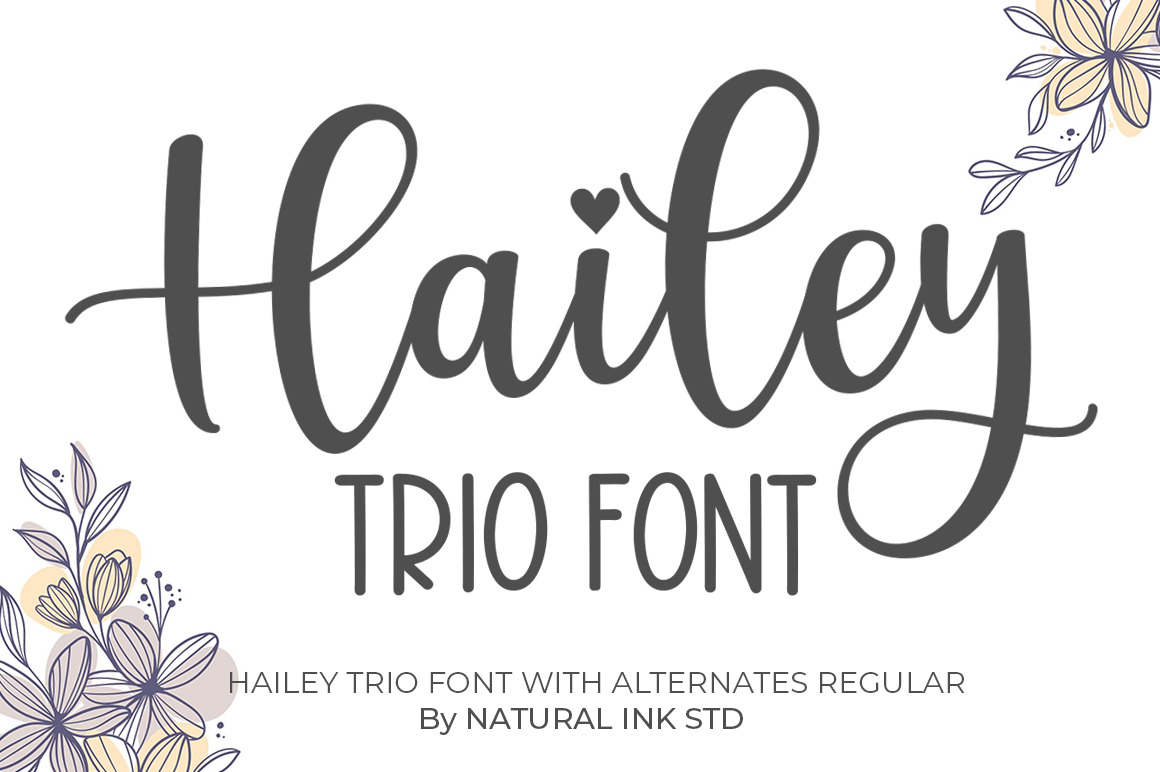
Hailey Trio Font
Hailey Script Font Trio is a new modern script font with an irregular base line. Trendy and feminine style. Hailey Script looks beautiful in wedding invitations, thank-you cards, quotes, greeting cards, logos, business cards, and more. Perfect for use in ink or watercolors. Including initial letters and terminals, alternatives and support for many languages.